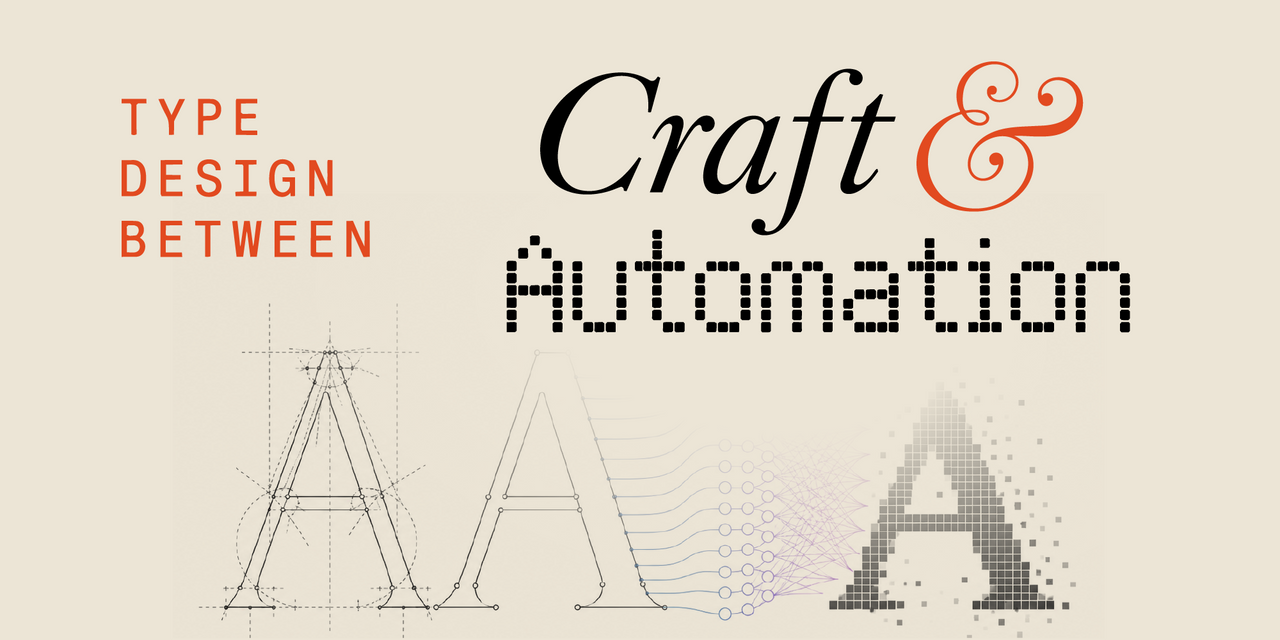
Type Design Between Craft and Automation
with Måns Grebäck
AI has the potential to reshape the craft of type design. What remains human when automation becomes part of the creative process?
Type design has always evolved alongside new technologies. From metal type to digital tools, every major shift has automated parts of the process while expanding what designers can create. Artificial intelligence is the latest step in that history—but it also feels different, because it appears to participate in decisions once considered uniquely human.
This lecture explores AI not as an autonomous designer, but as a predictive system that extends patterns from existing inputs. In type design, where a handful of drawn letters can define an entire typeface, prediction and interpolation have long been part of the process. AI can accelerate these mechanisms without replacing the role of the designer.
Rather than asking whether AI will replace type designers, the lecture examines how authorship, judgment, and intent remain firmly in human hands. As automation lowers technical barriers and redistributes effort, the value of design shifts toward defining direction, making critical decisions, and understanding the broader system behind a typeface.
The discussion places AI within the longer history of technological change in type design, arguing that while tools continue to evolve, the designer remains the author of the work.
Måns Grebäck
Måns Grebäck is a typeface creator and artist with over 15 years of professional experience in typography. Drawing has been a natural part of his life since childhood, and a fascination with letters eventually grew into a lifelong pursuit of type design. Today, he has created hundreds of original typefaces used by designers, brands, and creatives around the world.
From elegant serifs and flowing scripts to bold display fonts, every typeface begins with the same ambition: to create something distinctive. Inspired by hand lettering, calligraphy, graffiti, and everyday visual culture, the philosophy behind the work is that it should have personality.
While rooted in traditional craftsmanship, his work continues to evolve through new tools and technologies. By combining artistic curiosity with technical precision, he explores new ways to shape the future of typography while staying true to the expressive character that defines his work.